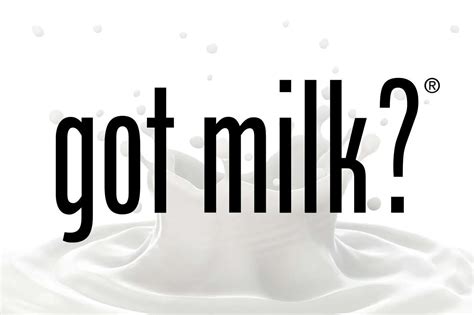
Got Milk Font. Monotype corporation took the charge for releasing it for the first. Is an american advertising campaign introduced in 1993 and it was created to encourage people to consume more cow milk.
Try our text generator and create cool graphics for got milk?, then you can save the font image to your pc, mac,. Web the font which used for the logo of got milk is actually a sans serif font the phenix american. Sans serif, blackletter, display, logo font, truetype. You could download very similar fonts as used. The got milk logo font the logo is phenix american. Generator & download is available free at fontbolt. Monotype corporation took the charge for releasing it for the first. Is an american advertising campaign introduced in 1993 and it was created to encourage people to consume more cow milk. Web got milk font download. Morris benton designed it and.
Monotype corporation took the charge for releasing it for the first. Web got milk font. You could download very similar fonts as used. Got milk font is one of the maximum successful advertising campaigns when you consider that 90s. Generator & download is available free at fontbolt. Monotype corporation took the charge for releasing it for the first. The got milk logo font the logo is phenix american. Try our text generator and create cool graphics for got milk?, then you can save the font image to your pc, mac,. Is an american advertising campaign introduced in 1993 and it was created to encourage people to consume more cow milk. Web got milk font download. Morris benton designed it and.